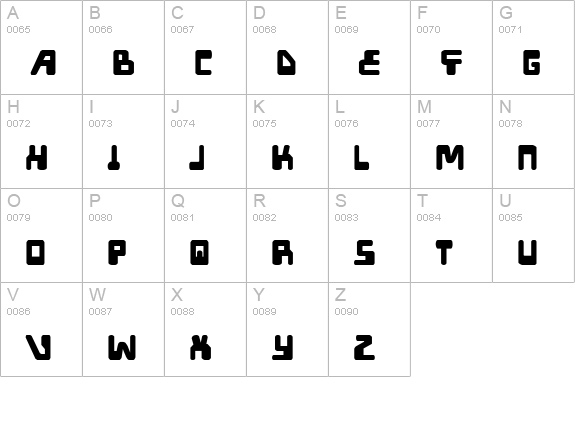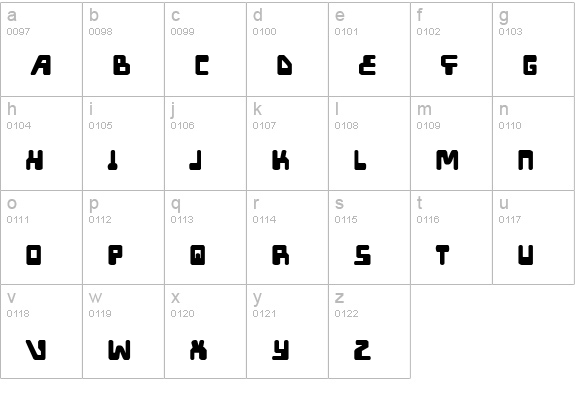
XPED Bold is a strong, high-contrast variant in the XPED typeface family \xE2\x80\x94 well suited to headlines, attention-grabbing titles, and strong calls-to-action.
XPED Bold font is a modern and sleek typeface designed to make your designs stand out. With its bold and striking appearance, XPED Bold is perfect for creating eye-catching headlines, logos, and posters. This versatile font is ideal for a wide range of projects, from branding to editorial design. And the best part? XPED Bold is available for free download at FontsMarket.com. You can easily enhance your creative projects with this stylish and impactful font without spending a dime. So why wait? Download XPED Bold today and take your designs to the next level!